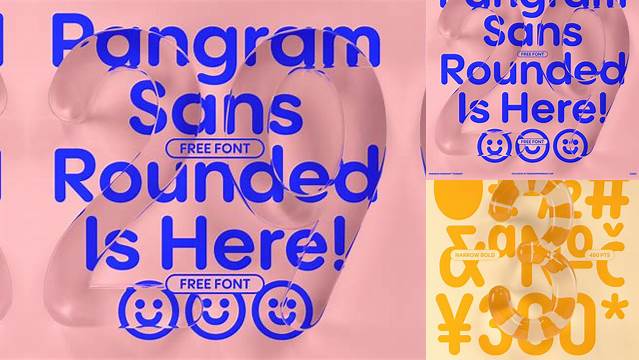
Pangram Sans Rounded - Free Font
Hey guys! Are you on the hunt for a versatile, stylish, and free font that can elevate your designs? Look no further! Pangram Sans Rounded is the answer to your font prayers. This article dives deep into the world of Pangram Sans Rounded, exploring its features, uses, and why it's become a favorite among designers like you. Let's get started!
1. Understanding the Allure of Pangram Sans Rounded
Let's talk about what makes Pangram Sans Rounded so darn appealing, shall we? First off, it's a sans-serif font, which means it's clean, modern, and easy to read. But what sets it apart is the rounded aspect. These subtle curves give it a friendly, approachable feel. This is perfect for projects that want to strike a balance between professionalism and a touch of warmth. Think about it: websites, posters, logos – anything that needs to be both visually appealing and easy to understand. Pangram Sans Rounded does the trick. The font family typically boasts a variety of weights, allowing designers the flexibility to use it for headlines, body text, and everything in between. You can go bold for a striking statement or choose a lighter weight for a more subtle, elegant look. The beauty of a well-designed font like this is in its versatility; it can adapt to fit your needs, not the other way around. What's more, its availability as a free font makes it an even more attractive choice for both professional and personal projects. This accessibility is a game-changer, opening up a world of design possibilities to anyone with an internet connection. You no longer have to break the bank to get a high-quality font that looks amazing. Pangram Sans Rounded is a testament to the fact that great design doesn’t have to come with a hefty price tag. So, if you're looking for a font that blends functionality, style, and affordability, consider this the ultimate solution, guys!
2. Key Features That Make Pangram Sans Rounded Stand Out
Alright, let's get into the nitty-gritty of Pangram Sans Rounded. What are the standout features that make it a winner? One of the first things you'll notice is the clean, modern design. The letterforms are carefully crafted, ensuring readability at various sizes. Whether you're using it on a tiny mobile screen or a massive billboard, this font holds its own. Then, of course, there are the rounded terminals. This is where the font truly shines. These soft edges give it a unique character that sets it apart from other sans-serif fonts. They add a touch of friendliness and approachability without sacrificing the font’s clean aesthetic. Pangram Sans Rounded also typically offers a range of weights and styles. This is crucial for any designer. Having options like light, regular, bold, and sometimes even extra bold allows you to create visual hierarchy in your designs. You can use a bolder weight for headlines to grab attention and a lighter weight for body text to make it easier on the eyes. This variety makes the font incredibly versatile. Compatibility is another key feature. Pangram Sans Rounded is generally designed to work seamlessly across different platforms and software. Whether you’re using Adobe Photoshop, Canva, or any other design tool, the font should integrate smoothly. This cross-platform compatibility saves you time and hassle, allowing you to focus on your creative work. Remember, a good font is more than just pretty letters; it's a tool that can elevate your entire design. Pangram Sans Rounded understands this, delivering a combination of style, functionality, and usability that makes it a valuable asset in any designer's toolkit. It’s built to perform, built to impress, and built to be a cornerstone of your projects. It's a total win-win!
3. Ideal Applications for Pangram Sans Rounded in Design
Where does Pangram Sans Rounded truly shine in the world of design? Well, this font is a chameleon, adapting beautifully to various applications. It's a fantastic choice for web design. Its clean lines and readability make it perfect for body text, headlines, and navigation menus. The rounded edges give websites a welcoming vibe, encouraging visitors to stay and explore. Moving on to branding, it’s an excellent choice for logos and corporate identities. The font conveys a sense of approachability, trustworthiness, and modernity. If you want to create a brand that is both professional and friendly, Pangram Sans Rounded can help you achieve this balance. In terms of print materials, consider using it for brochures, posters, and flyers. The font’s versatility allows you to create visually appealing layouts that are easy to read, even from a distance. You can use different weights to highlight key information and create a strong visual impact. Also, think about it for social media graphics and marketing materials. It's a great way to make your content stand out from the crowd. Whether you're creating Instagram posts, Facebook ads, or any other type of social media content, this font will help you capture attention. Don’t forget about the world of apps and user interfaces. This font is also an excellent option for creating intuitive and user-friendly interfaces. Its clarity and readability make it perfect for displaying information in a way that is easy for users to understand and navigate. Pangram Sans Rounded is not just a font; it's a design partner, ready to adapt and excel in various creative projects. With its flexibility and style, it's a surefire way to boost your creative game!